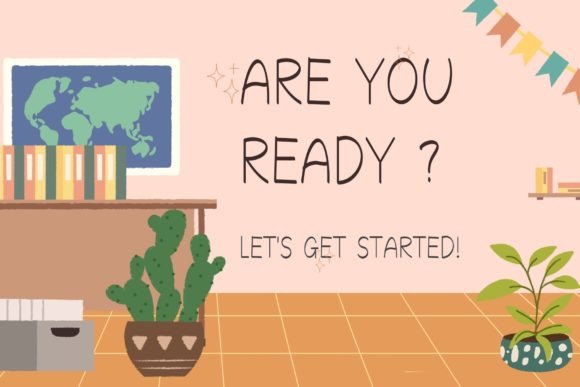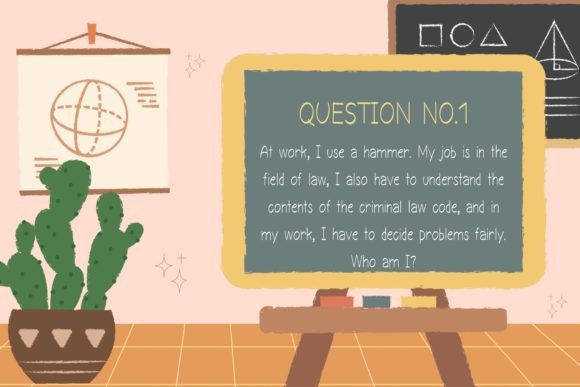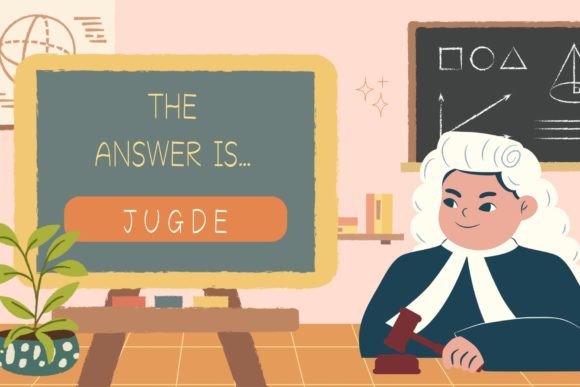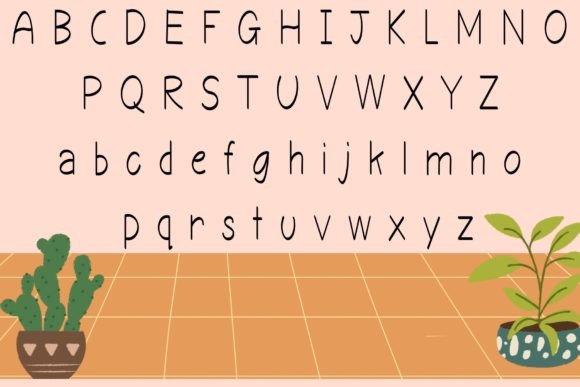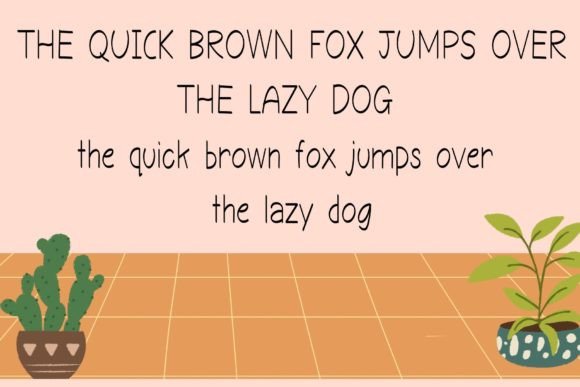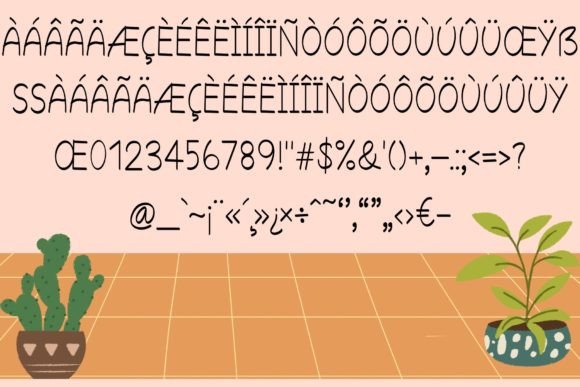
Introducing Gabriella Font: The Playful Handwritten Font for Your Creative Projects
Are you looking for a font that adds a touch of playfulness and whimsy to your designs? Look no further than Gabriella Font! This cute, handwritten font is perfect for creating fun and engaging invites, cards, logos, and other creative projects. In this article, we’ll take a closer look at Gabriella Font, its features, and how you can use it to elevate your designs.
What is Gabriella Font?
Gabriella Font is a playful sans-serif font that is designed to bring a smile to your face. It’s a handwritten font that has a carefree and spontaneous feel to it, making it perfect for designs that require a personal touch. The font is clean, simple, and easy to read, making it versatile enough to use in a variety of projects.
Key Features of Gabriella Font
- Cute and Playful: Gabriella Font has a playful and whimsical feel to it, making it perfect for designs that require a fun and carefree touch.
- Handwritten: The font has a handwritten feel to it, giving it a personal and spontaneous touch.
- Clean and Simple: Despite its playful feel, Gabriella Font is clean and simple, making it easy to read and versatile enough to use in a variety of projects.
- Sans-Serif: The font is a sans-serif font, which means it doesn’t have any decorative lines or flourishes at the ends of the letters.
How to Use Gabriella Font in Your Designs
Gabriella Font is a versatile font that can be used in a variety of projects, including:
- Invites: Use Gabriella Font to create fun and playful invitations for parties, weddings, and other special events.
- Cards: The font is perfect for creating greeting cards, thank-you cards, and other types of cards that require a personal touch.
- Logos: Gabriella Font can be used to create fun and playful logos for businesses, products, and services.
- Crafting Projects: The font is perfect for crafters who want to add a personal touch to their projects, such as scrapbooking, journaling, and DIY crafts.
Tips for Using Gabriella Font Effectively
- Use it in combination with other fonts: Gabriella Font can be used in combination with other fonts to create visual interest and add depth to your designs.
- Experiment with different colors: The font looks great in a variety of colors, so don’t be afraid to experiment and find the perfect color for your design.
- Use it to add a personal touch: Gabriella Font is perfect for adding a personal touch to your designs, so use it to create a sense of warmth and personality.
Gabriella Font is a cute, handwritten font that is perfect for designers and crafters who want to add a touch of playfulness and whimsy to their designs. With its clean and simple design, Gabriella Font is versatile enough to use in a variety of projects, from invites and cards to logos and crafting projects. Whether you’re a professional designer or a DIY crafter, Gabriella Font is a great addition to your font collection.
Overall, Gabriella Font is a great font for anyone who wants to add a touch of playfulness and whimsy to their designs. With its clean and simple design, Gabriella Font is perfect for a variety of projects, from invites and cards to logos and crafting projects.